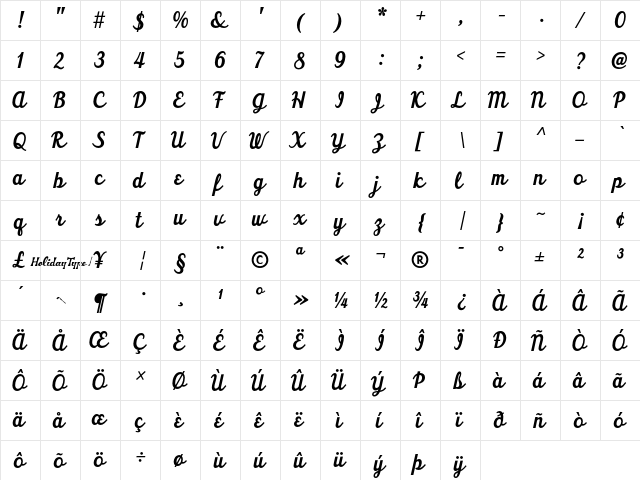
HT Trattoria Regular
| Foundry | Ryoichi Tsunekawa |
| Designer | Ryoichi Tsunekawa |
Design Context for HT Trattoria Typeface
HT Trattoria is a composed and adaptable typeface that performs quietly and consistently across a wide range of design contexts.